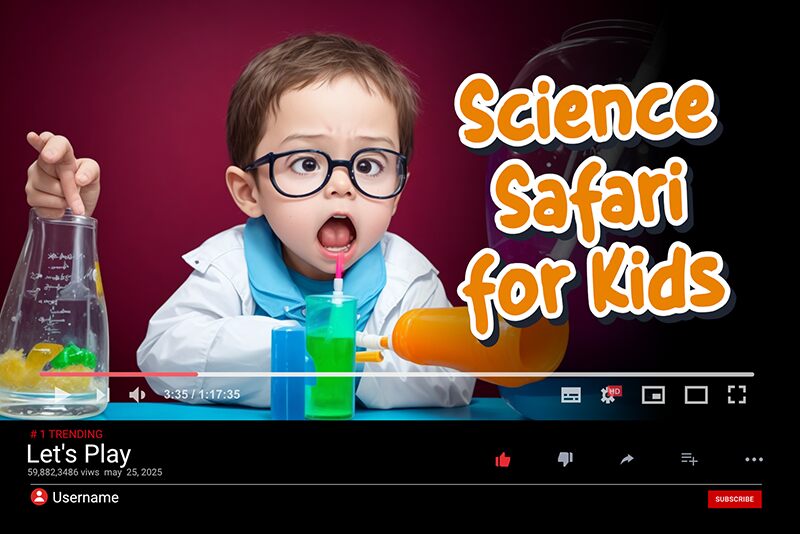
Baby Kimo font by DumadiStyle is a free comic font bursting with energy and personality. Designed to engage and invite, this youthful font features a modern and friendly style suitable for a variety of casual contexts. The font embodies a bright, casual aura that makes it particularly inviting and engaging for any project aiming to attract a younger audience or convey a fun and lively tone.
Dive into using Baby Kimo for children’s books, comic strips, educational materials, or school projects. This font is also splendid for casual branding, product packaging, social media graphics, event invitations, or even posters aiming to add a touch of playful whimsy.